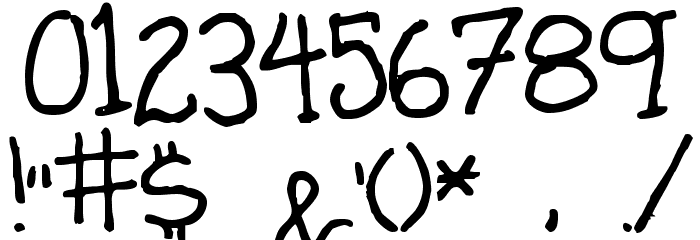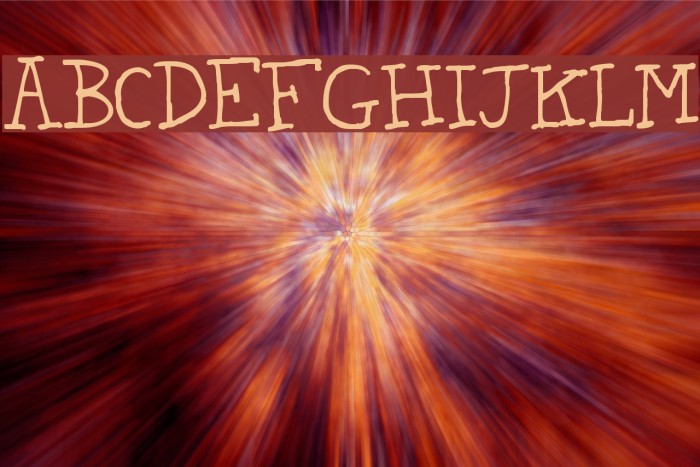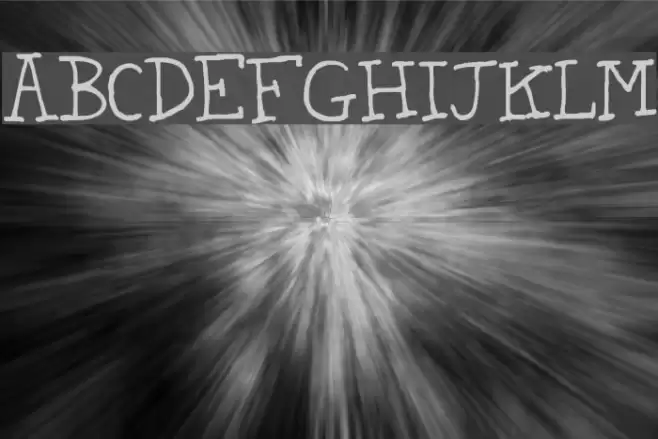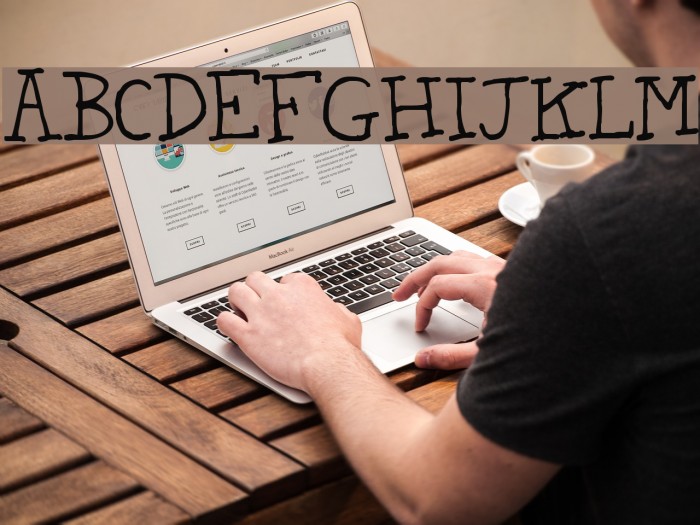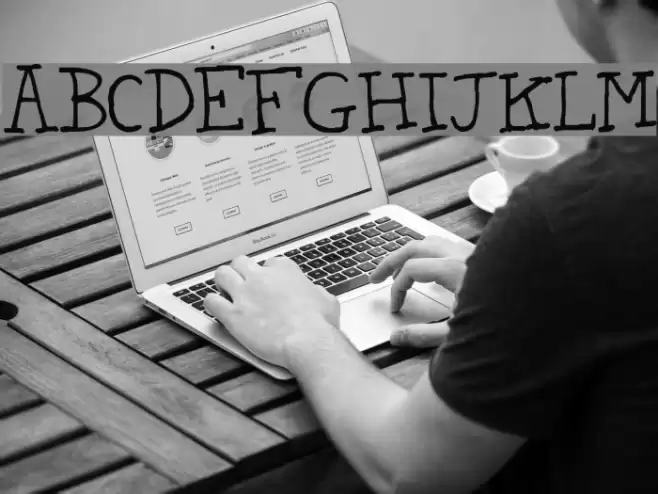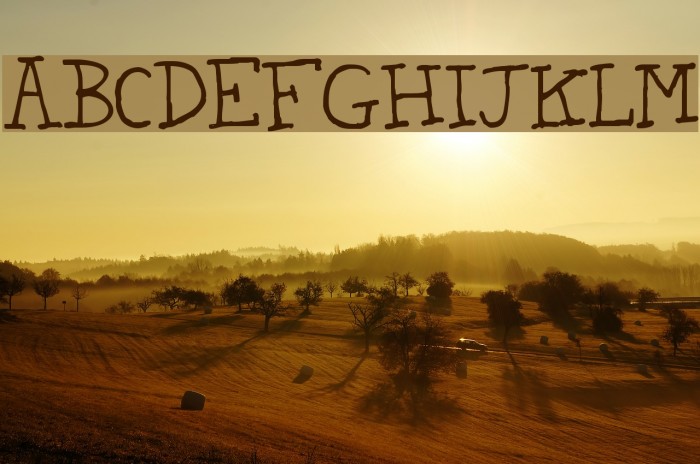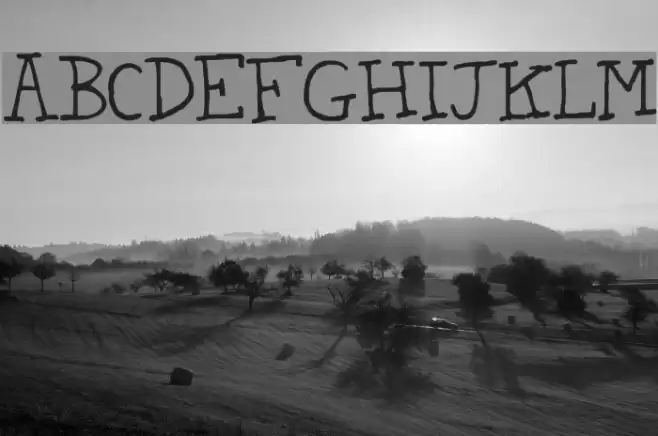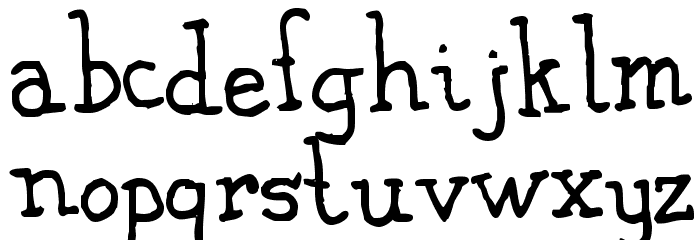
Koorear Font
Koorear Description
This font features a playful and casual handwritten style, characterized by its uneven lines and slightly irregular shapes. The letters have a whimsical quality, with varying stroke thickness that adds to its informal charm. The uppercase and lowercase letters maintain a consistent style, while the numbers and special characters are equally expressive. This font exudes a friendly and approachable vibe, making it suitable for creative and informal projects.
| Overall Style | Casual |
| Use Case | Headlines, Informal text, Creative projects |
| Proposed Projects | Ideal for children's books, greeting cards, personal blogs, and creative branding. |